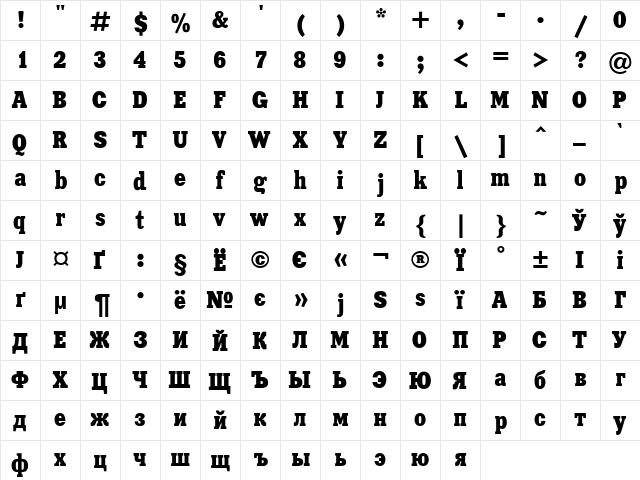
UkrainianXeniaCondensed Regular
Design Context for UkrainianXeniaCondensed Typeface
UkrainianXeniaCondensed is a composed and adaptable typeface that performs quietly and consistently across a wide range of design contexts. The condensed width makes it efficient for tight spaces without sacrificing legibility.